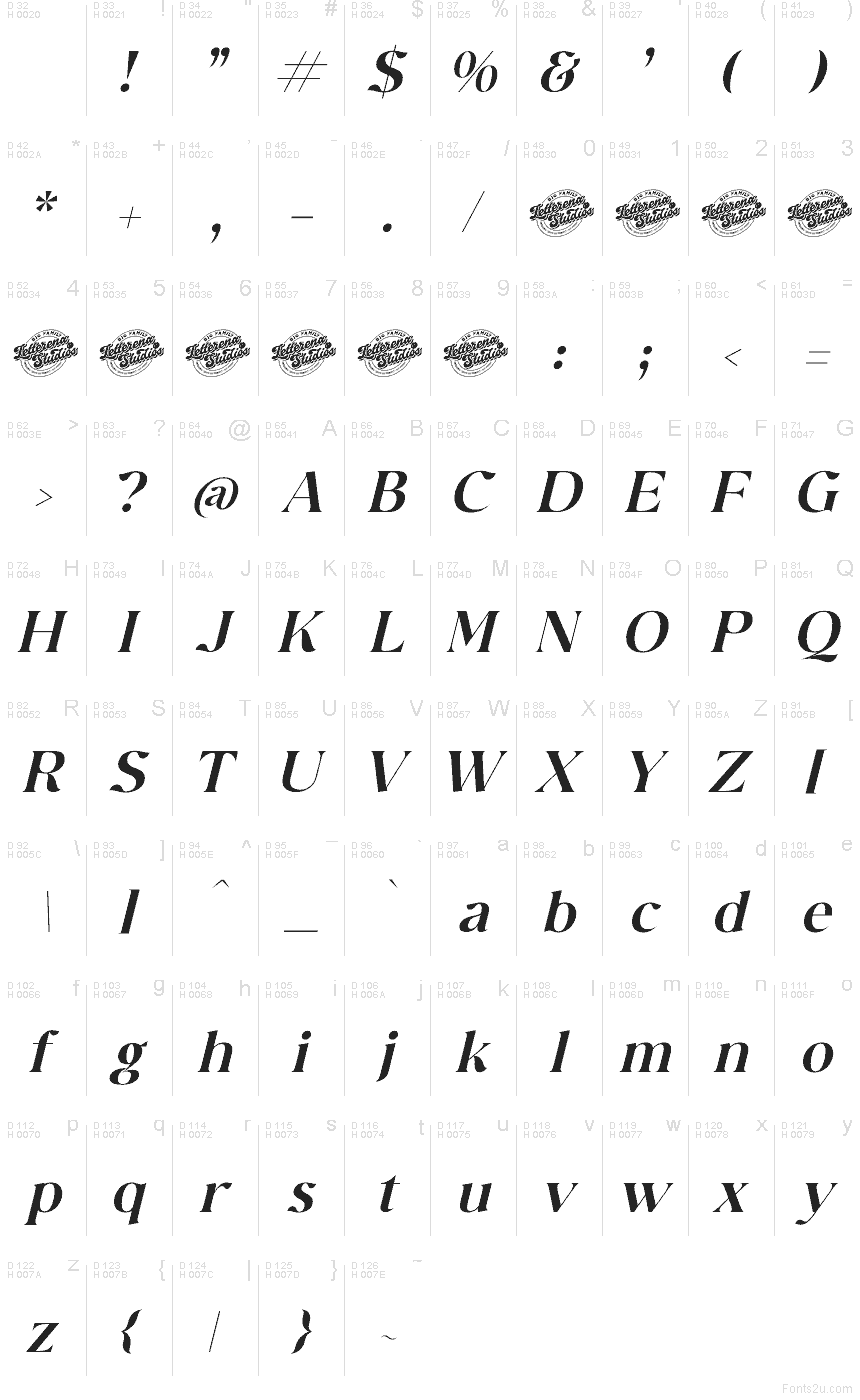
Rehgal DEMO VERSION Italic
Rehgal Italic font by Letterena Studios is a free italic serif typeface that turns every word into a statement. Part of the Rehgal family, it leans dramatically forward, with inky, weighty strokes that taper into razor-sharp points, giving text a sense of motion and intent. The letters feel sculpted rather than drawn—broad, velvety curves slice into crisp angles—so a single word can carry the mood of a whole layout.
Using Rehgal Italic, headlines feel luxurious and a bit daring, which makes this free font a natural fit for fashion branding, beauty packaging, magazine covers, book titles, posters, and high-end logos. It shines on large sizes where the rich strokes and bold slant can really breathe. Pair it with a clean, understated sans serif for body copy to let Rehgal Italic handle the drama while the supporting text keeps things readable and grounded.